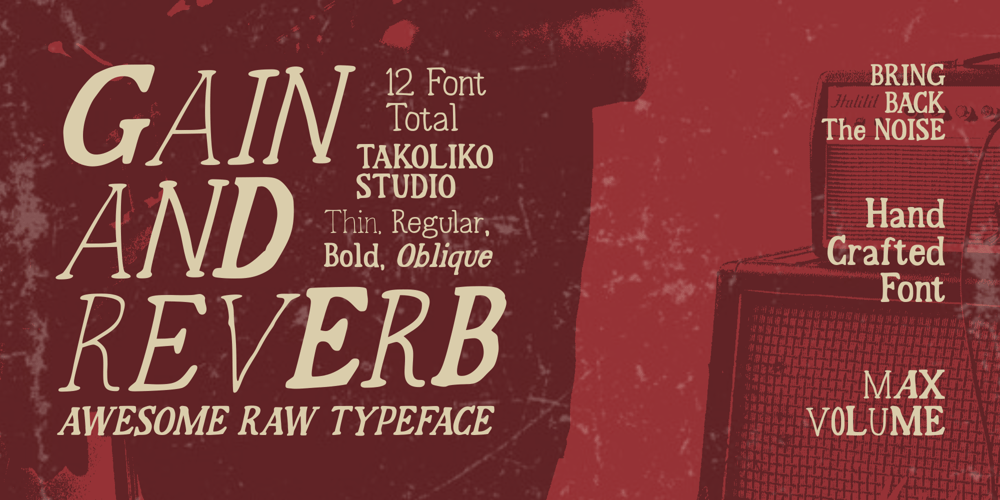
Gain And Reverb Font Family was designed by Deni Hidayat and published by takoliko. Gain And Reverb contains 12 styles and family package options. Gain and reverb is a awesome raw typeface. Basicly its a serif hand drawn typeface. Inspired by the gain and reverb sound of a guitar and a rock band. It has a little bit rebellion vibe and a handmade touch on the characters. You can add a different weight to create a variation and uniqueness on the letters, make even more look like its a raw hand made design. So enjoy and have a great project with our typeface!